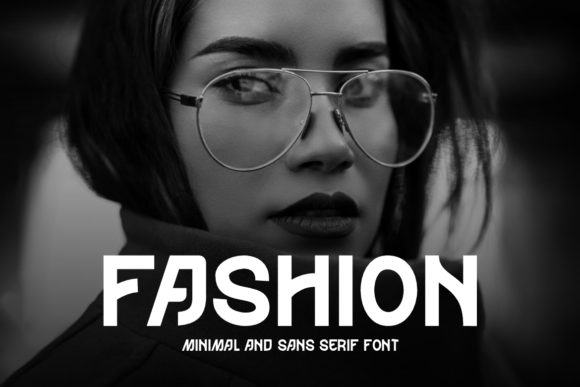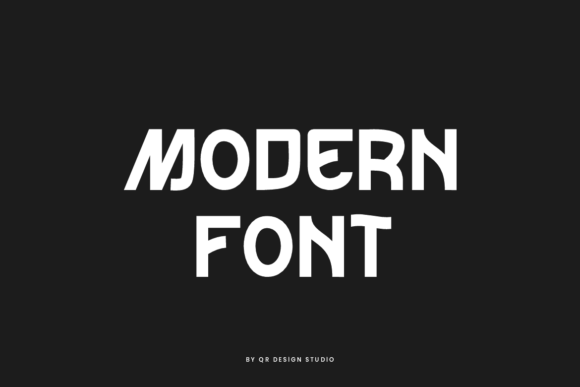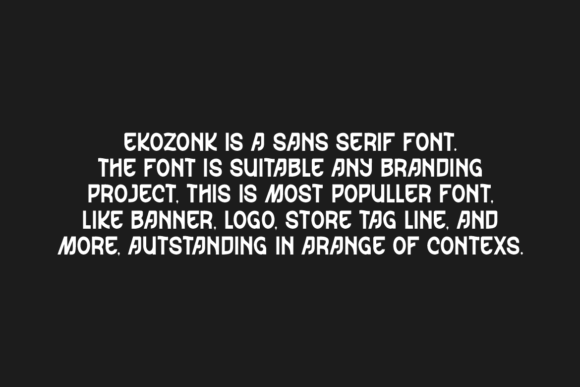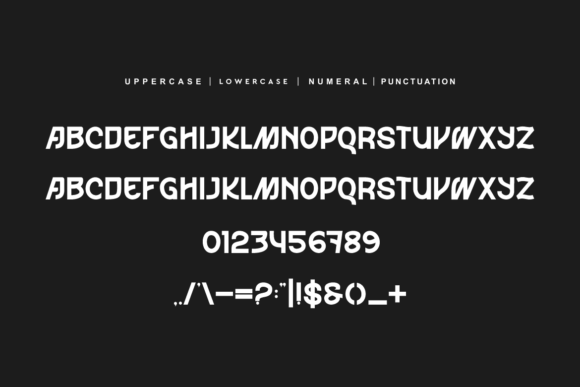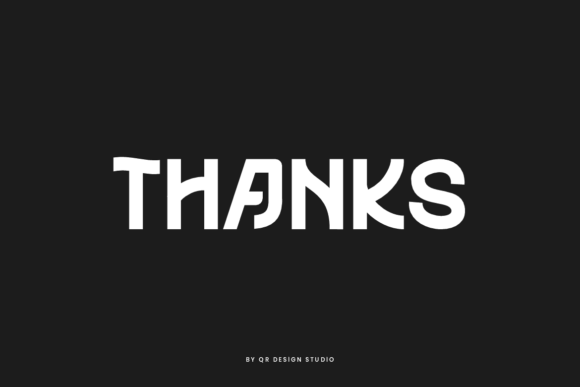
Ekozonk Font: Elevate Your Designs with a Stylish and Bold Sans Serif
Are you on the hunt for a font that can add a touch of sophistication and confidence to your designs? Look no further than the Ekozonk Font. This gorgeous and bold sans serif font is crafted to give your headlines and logotype projects a stylish touch that’s sure to turn heads. In this article, we’ll dive into the features and benefits of Ekozonk, and explore how it can elevate your designs to the next level.
A Strong, Confident, and Dynamic Font
Ekozonk reads as strong, confident, and dynamic, making it the perfect choice for designers who want to make a statement. Its bold and sans serif design gives it a modern and sleek look that’s perfect for headlines, logotypes, and other high-impact design projects. Whether you’re working on a branding project, a website, or a marketing campaign, Ekozonk is the perfect font to help you stand out from the crowd.
Adding Nostalgic Character to Your Designs
One of the unique features of Ekozonk is its ability to add tons of nostalgic character to your designs. Its bold and playful design has a retro feel that’s reminiscent of classic design from the 80s and 90s. This makes it perfect for designers who want to add a touch of vintage flair to their work. Whether you’re working on a project that requires a retro vibe or simply want to add some personality to your designs, Ekozonk is the perfect choice.
Perfect for Headlines and Logotype Projects
Ekozonk is specifically designed for use in headlines and logotype projects. Its bold and eye-catching design makes it perfect for grabbing attention and making a statement. Whether you’re working on a logo, a billboard, or a website header, Ekozonk is the perfect font to help you get noticed. Its versatility also makes it suitable for use in a variety of design projects, from brochures and flyers to social media graphics and more.
Key Features of Ekozonk Font
- Bold and Sans Serif Design: Ekozonk’s bold and sans serif design makes it perfect for headlines and logotype projects.
- Strong, Confident, and Dynamic: Ekozonk reads as strong, confident, and dynamic, making it perfect for designers who want to make a statement.
- Nostalgic Character: Ekozonk’s bold and playful design has a retro feel that’s reminiscent of classic design from the 80s and 90s.
- Versatile: Ekozonk is suitable for use in a variety of design projects, from brochures and flyers to social media graphics and more.
Why Choose Ekozonk Font?
So why choose Ekozonk font for your next design project? Here are just a few reasons:
- Unique and Eye-Catching Design: Ekozonk’s bold and playful design makes it perfect for grabbing attention and making a statement.
In conclusion, Ekozonk font is a stylish and bold sans serif font that’s perfect for designers who want to add a touch of sophistication and confidence to their designs. Its strong, confident, and dynamic design makes it perfect for headlines and logotype projects, while its nostalgic character adds a touch of vintage flair. With its versatility, high-quality design, and affordability, Ekozonk is the perfect choice for designers who want to elevate their designs to the next level.